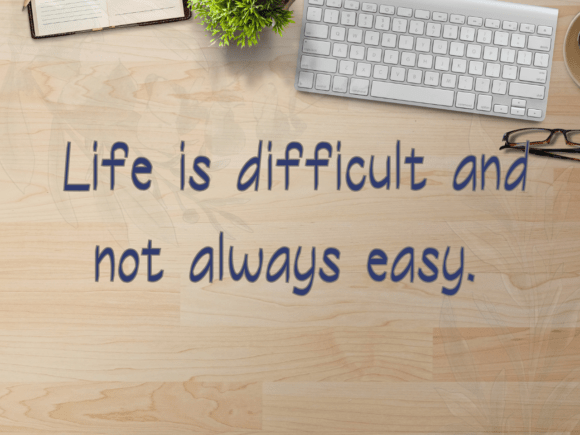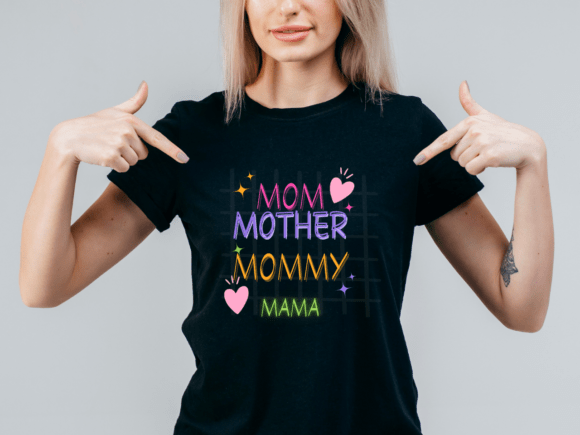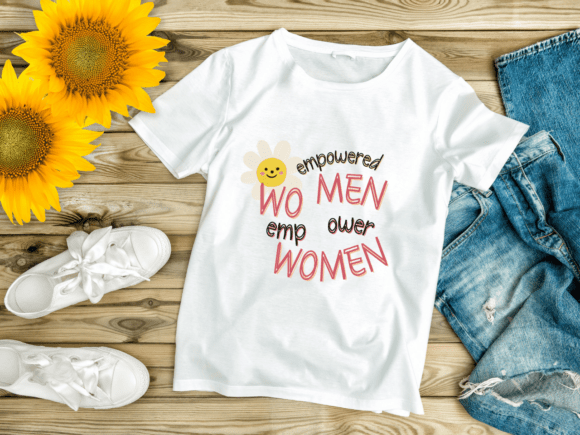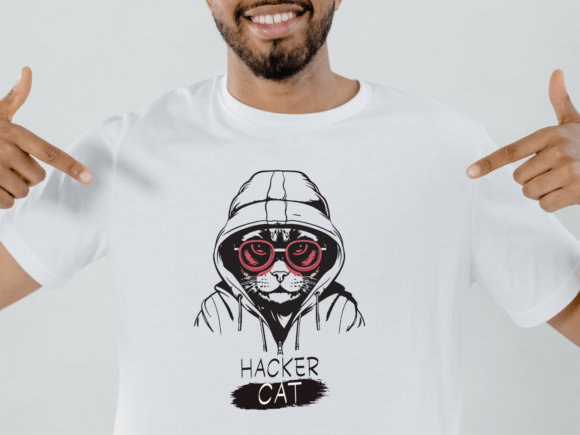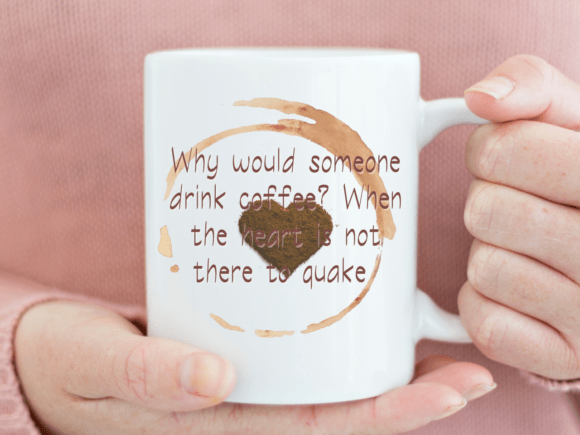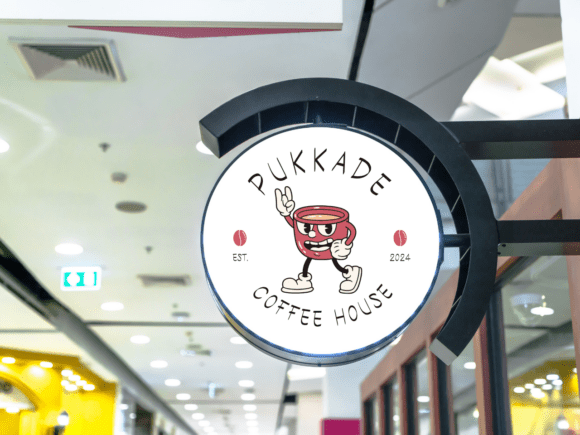
Introduction to Nonni Font
✨ Nonni – A Handcrafted Font with Character Nonni is a uniquely designed font created to bring a touch of individuality and artistic flair to your work.
| 👤 Author | Pukka De |
With its playful, slightly unconventional letterforms, Nonni gives every project a fresh and distinctive identity Whether you’re crafting greeting cards, wedding invitations, quotes, logos, handwritten notes, planners, Goodnotes templates , or educational materials for teachers, this font adds a fun and creative edge.